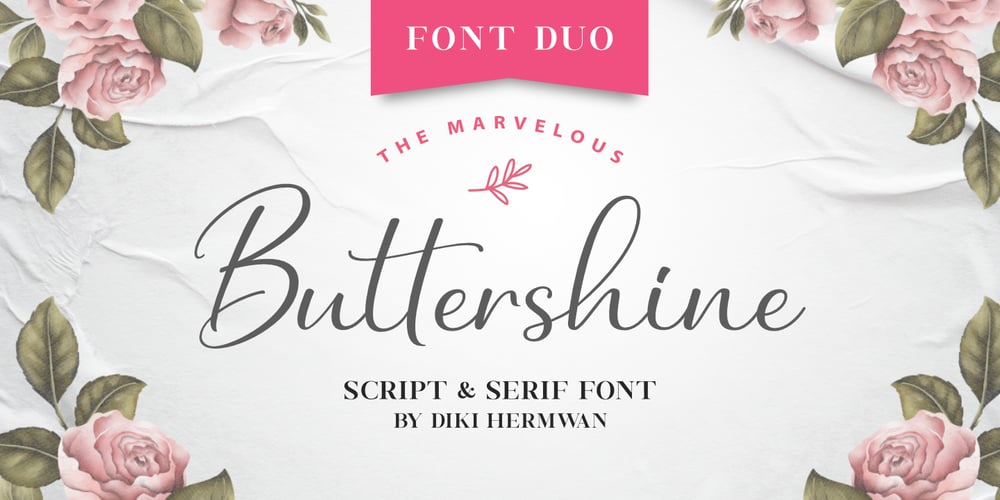
Buttershine Serif
Buttershine Serif font
Buttershine Serif Font Family was designed by Diki Hermawan and published by Typestory. Buttershine Serif contains 2 styles and family package options. Buttershine is a bold, beautiful and versatile duo font (serif and script). It looks beautiful on a variety of designs requiring a personalized style, such as wedding invitations, thank you cards, weddings, greeting cards, logos and so on.What’s Included : Ligature, Alternate & Swashes Works on PC & Mac Simple installations Accessible in the Adobe Illustrator, Adobe Photoshop, Adobe InDesign, even work on Microsoft Word. PUA Encoded Characters – Fully accessible without additional design software.